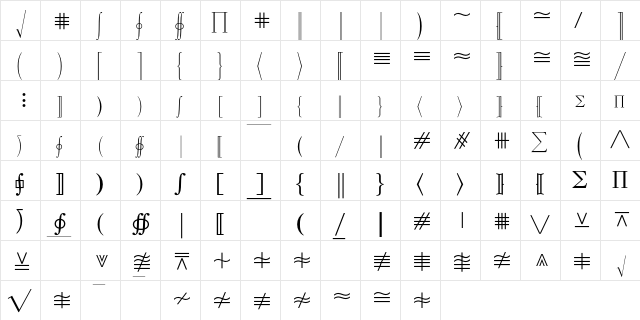
Mathematical Pi 3
Design Context for Mathematical Pi Typeface
Mathematical Pi offers clean, dependable letterforms without strong stylistic allegiance, making it a practical choice for designers who need flexibility.